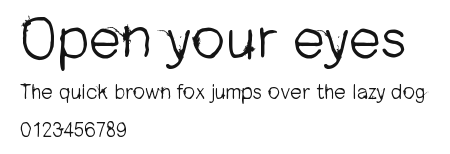
Open your eyes Preview
• Font Name: Open your eyes
• Designer: junkohanhero
About Open your eyes.ttf
Open your eyes.ttf is a modern, elegant sans-serif font designed for ultimate readability and visual harmony. Perfect for branding, headlines, web design, and print materials.